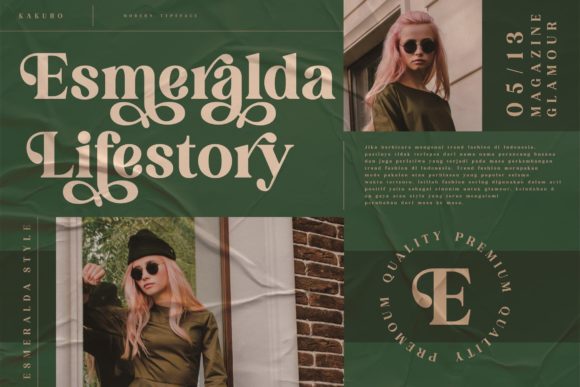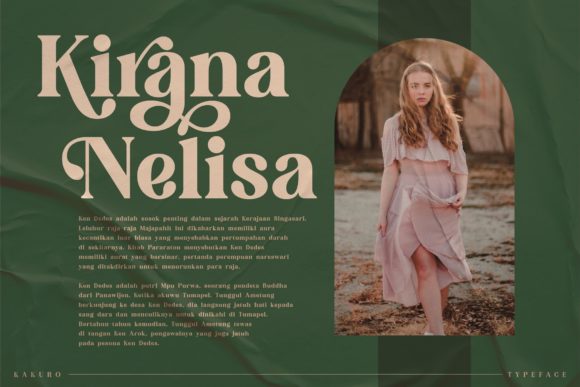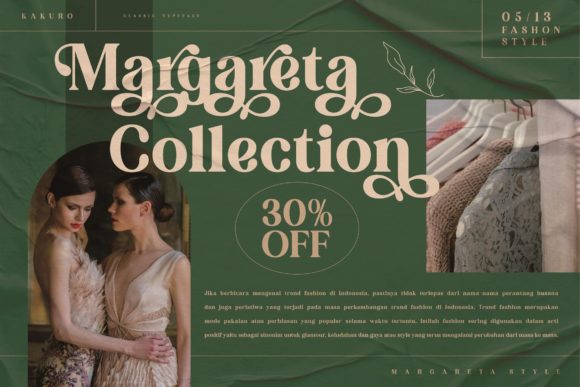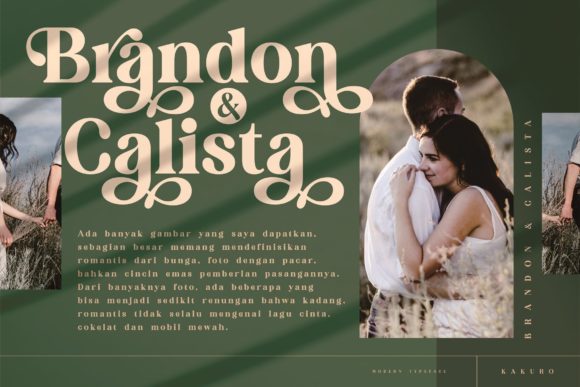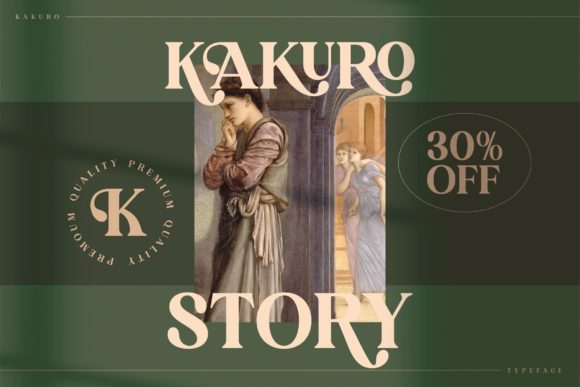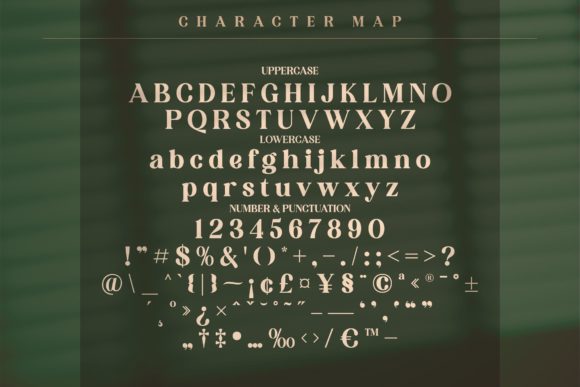
Introduction to Kakuro Font
As a designer, you know the feeling of excitement when you stumble upon the perfect font for your project. It’s like a lightbulb moment – everything falls into place, and your creative vision becomes a reality. For me, that moment came when I discovered the Kakuro Font, a bold, stylish, and thick lettered serif font that adds a touch of elegance to any design.
What sets Kakuro Font apart is its PUA encoded design, making it incredibly easy to access and use all its glyphs and swashes. Whether you’re working on a high-end design project or just a fun creative endeavor, this font is a valuable resource that will elevate your work to the next level. With its high quality and versatility, Kakuro Font is a must-have in any designer’s arsenal.
Kakuro Font
- Unique and stylish design suitable for creative projects, with a transparent background for seamless integration.
- Perfect for adding a touch of elegance and sophistication to any design project, from logos to typography.
- Can be used for a wide range of creative projects, from branding and advertising to editorial and publishing.
Honest Review: Kakuro Font
I recently stumbled upon the Kakuro Font, and I must say, it’s a great addition to any design resource. As a designer, I’m always on the lookout for high-quality fonts that can elevate my creative projects.
The Kakuro Font has a unique, clean design that works well for a variety of applications, from titles to body text. ✨ Its versatility is one of its strongest features, making it a great choice for designers who want a font that can adapt to different contexts.
One of the standout features of the Kakuro Font is its transparent background, which makes it easy to layer over other design elements. ✨ This is particularly useful for designers who want to create visually appealing and complex compositions.
Here are some of the key features of the Kakuro Font:
One potential limitation of the Kakuro Font is its limited character set. ⚠️ While it’s still a great choice for most design applications, it may not be suitable for projects that require a wide range of characters.
Overall, I’m impressed with the Kakuro Font, and I think it’s a great addition to any design resource. Its high-quality design, versatility, and transparent background make it a standout choice for designers looking for a reliable font.
The Kakuro Font is ideal for various design projects, including:
– Brochures and flyers
– Business cards and letterheads
– Social media graphics and ads
For optimal results, use the Kakuro Font in conjunction with a transparent background to create a unique and eye-catching design. Additionally, experiment with different font sizes and styles to add depth and visual interest to your project.